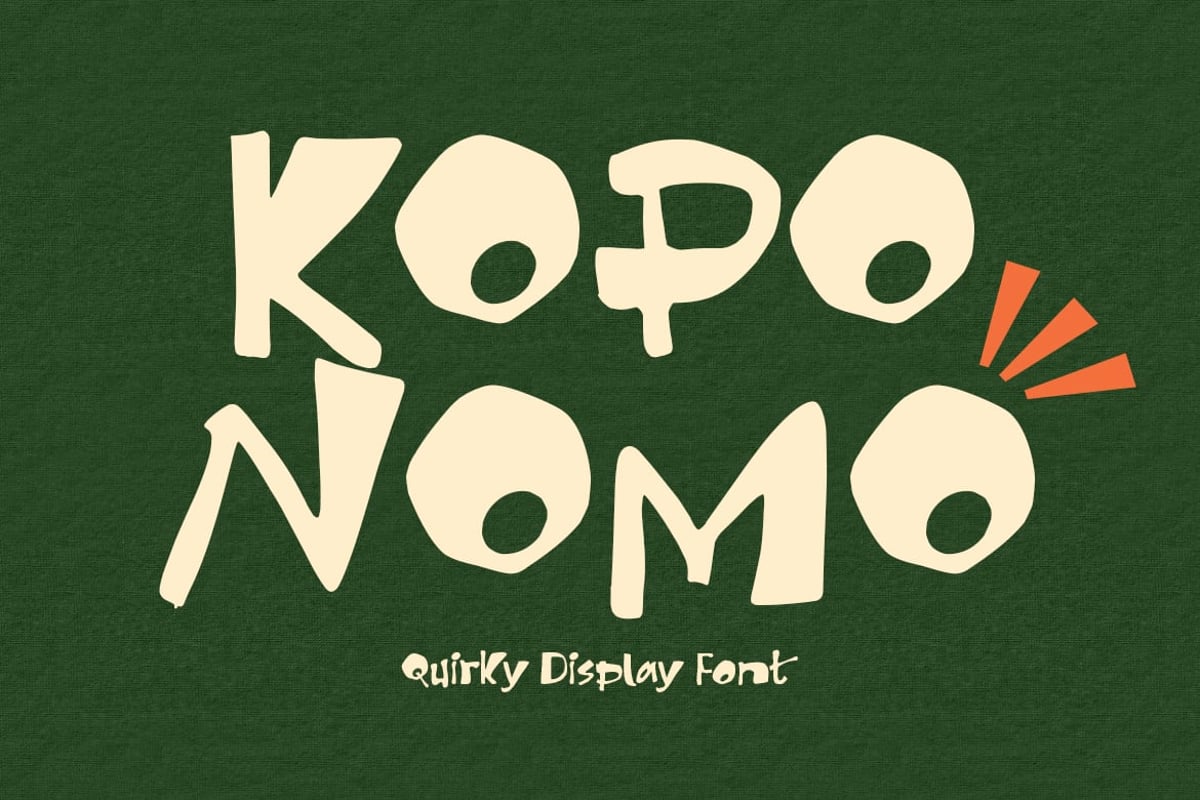
Kopo Nomo - Food Font
Add delicious personality to your culinary designs with this chunky, hand-drawn decorative font perfect for food branding.
This typeface features a bold and irregular hand-drawn aesthetic with chunky letterforms that bring warmth and character to any food-related project.
Perfect For:
- Bakery and café branding
- Food and beverage logos
- Restaurant menus and signage
- Coffee shop and donut shop designs
- Food packaging and labels
- Social media food promotions
- Kitchen-themed posters and prints
- Culinary blogs and recipe graphics